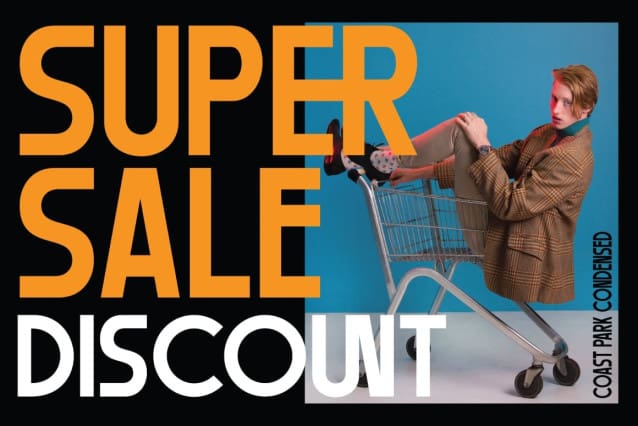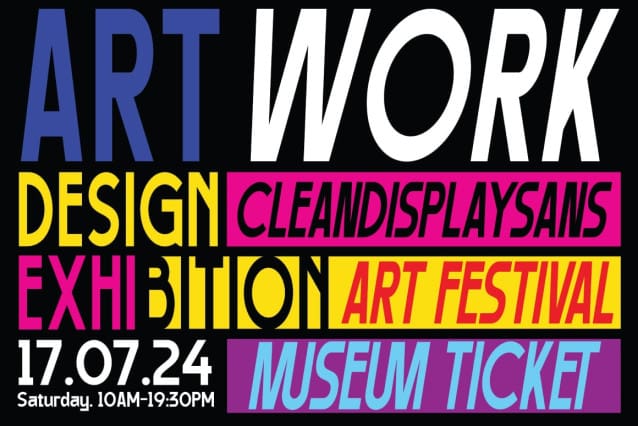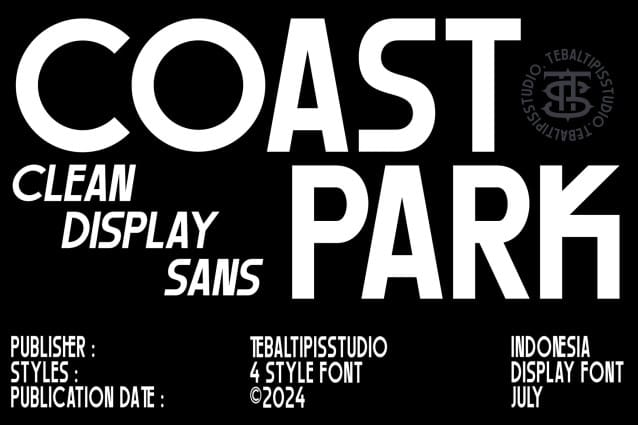
Coast Park Font
Coast Park Font is a contemporary sans serif that offers a straightforward interpretation of the English humanist sans, delicately blending rigid tones on a warm structure. It is available in 4 styles and comes with a Condensed Slant set. This simple and carefully designed typeface, whose strokes flirt with geometry, becomes a powerful working tool. Its versatility makes it an ideal tool for paragraphs and large compositions, an excellent choice for branding, signage, copywriting, and more.